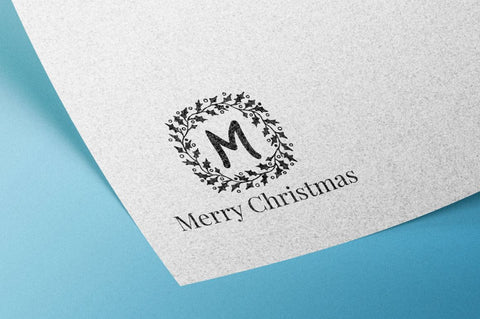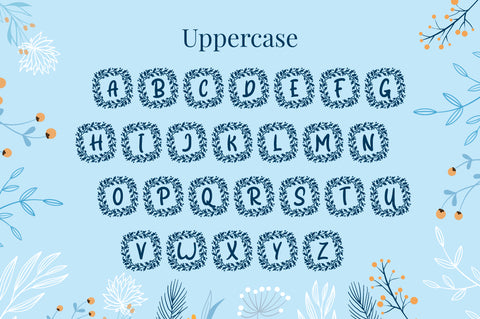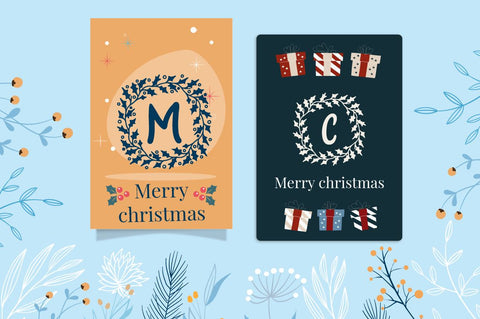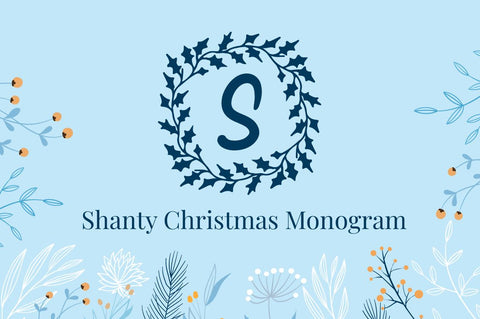
Shanty Christmas Monogram
Shanty Christmas Monogram is Flower Wreath monogram font, perfect for any christmas & winter related designs for your special occasions, business designs, logos, branding, social media posts, and wedding cards.
Comes in with 2 styles.
Just simply change between uppercase and lowercase to see the different styles!
- Uppercase (A-Z)
- Lowercase (a-z)
- Number (0-9)